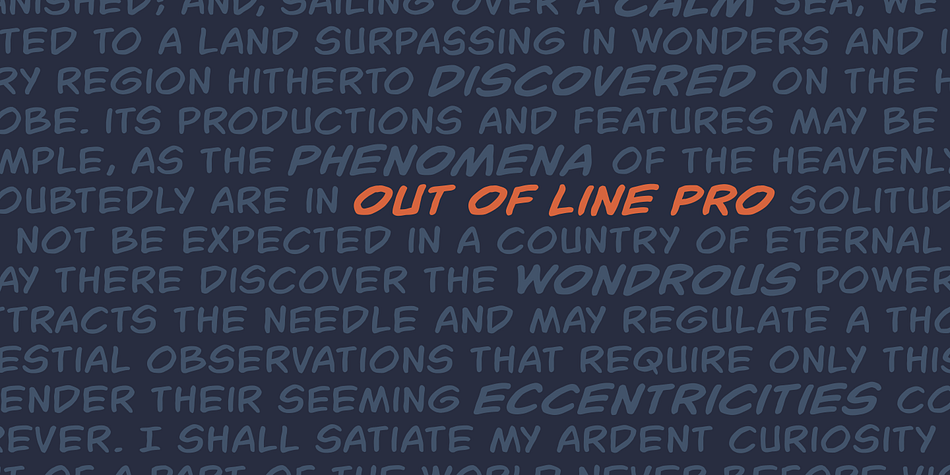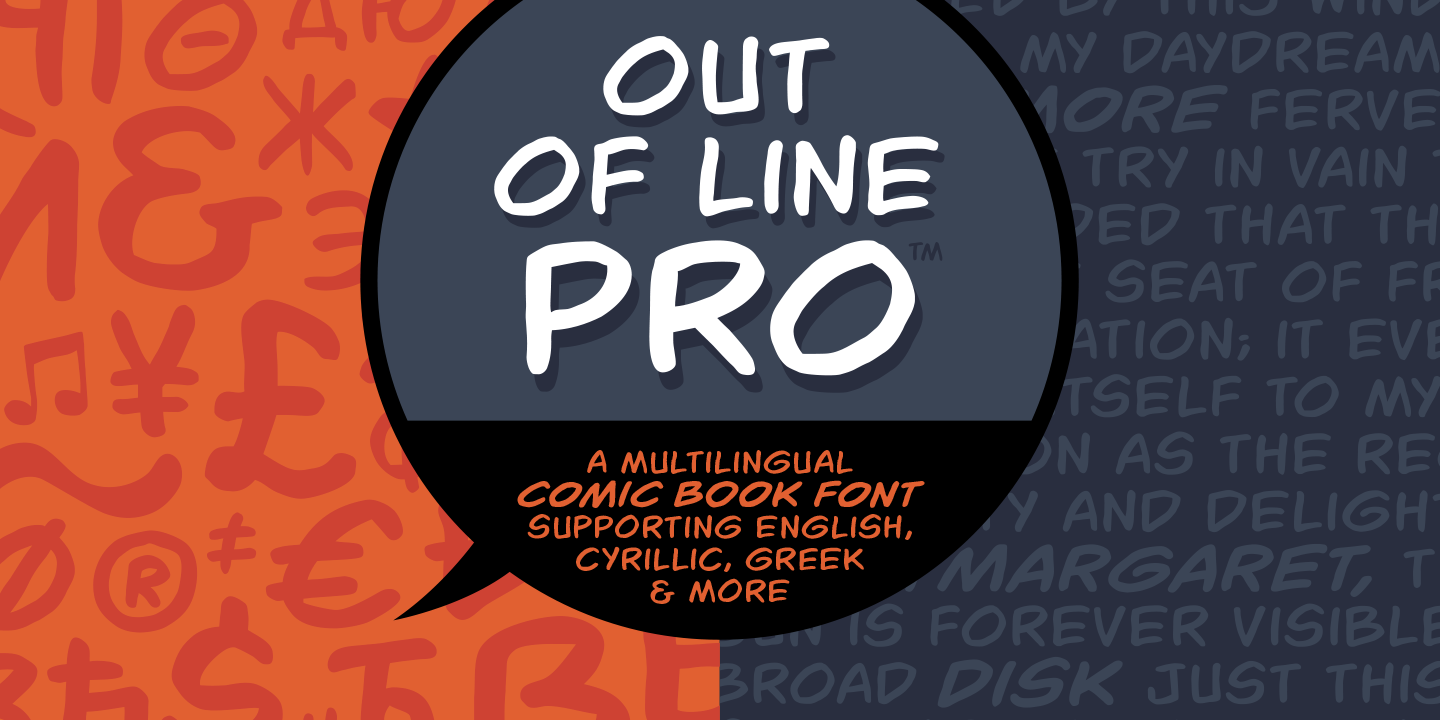
Out of Line Pro BB
Designed by Nate Piekos, Out of Line Pro BB is a comic font family. This typeface has four styles and was published by Blambot.
Out of Line Pro BB is a comic book dialogue typeface with Greek and Cyrillic support, as well as a hefty compliment of European diacritical glyphs. It’s the improved remix of Blambot’s popular Out of Line BB set. Designed after Blambot letterer, Nate Piekos’s hand lettering, it features opentype autoligatures, contextual alternates, and fractions.
Foundry Blambot
Style Comic
Designer Nate Piekos